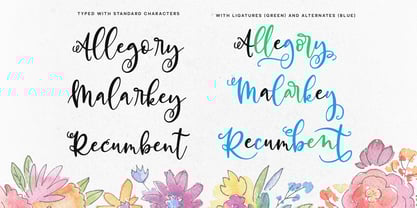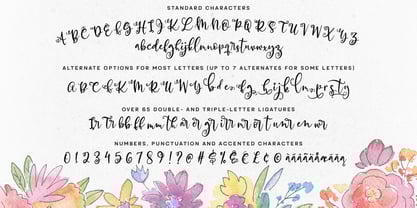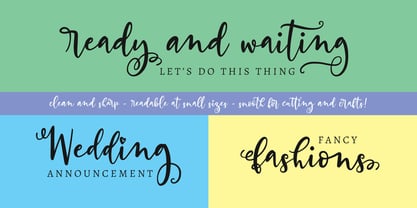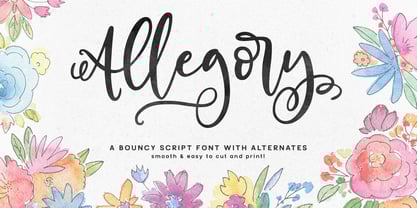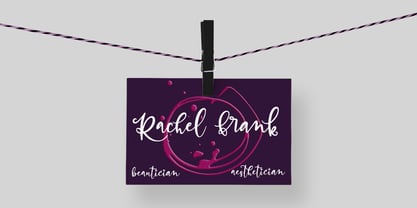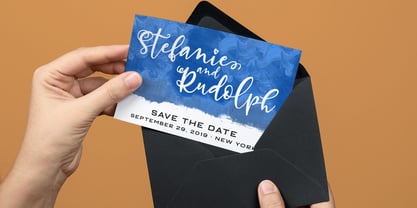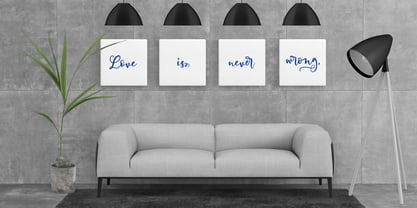
Allegory
Allegory is a connecting script font with a ton of swoop, bounce, and flair! It's hand-drawn, and extensively cleaned up so that it's smooth and sleek at any size.
The base alphabet starts out fun, but then things get even more exciting when you look at the alternates and ligatures. There are over 65 multi-letter ligatures to make sure letters flow well into each other, and over 100 alternate characters so you can add variety and flourish to your design. (And of course, everything is properly PUA-encoded for super easy access.)
Allegory features:
- The basics, of course: A-Z, a-z, 0-9, and tons of punctuation;
- Over 65 ligature sets for smooth letter connections (coded to standard ligatures);
- Over 100 alternates for variety (coded to stylistic set 01 through stylistic set 08);
- Approx. 200 extended and accented characters for Latin language support;